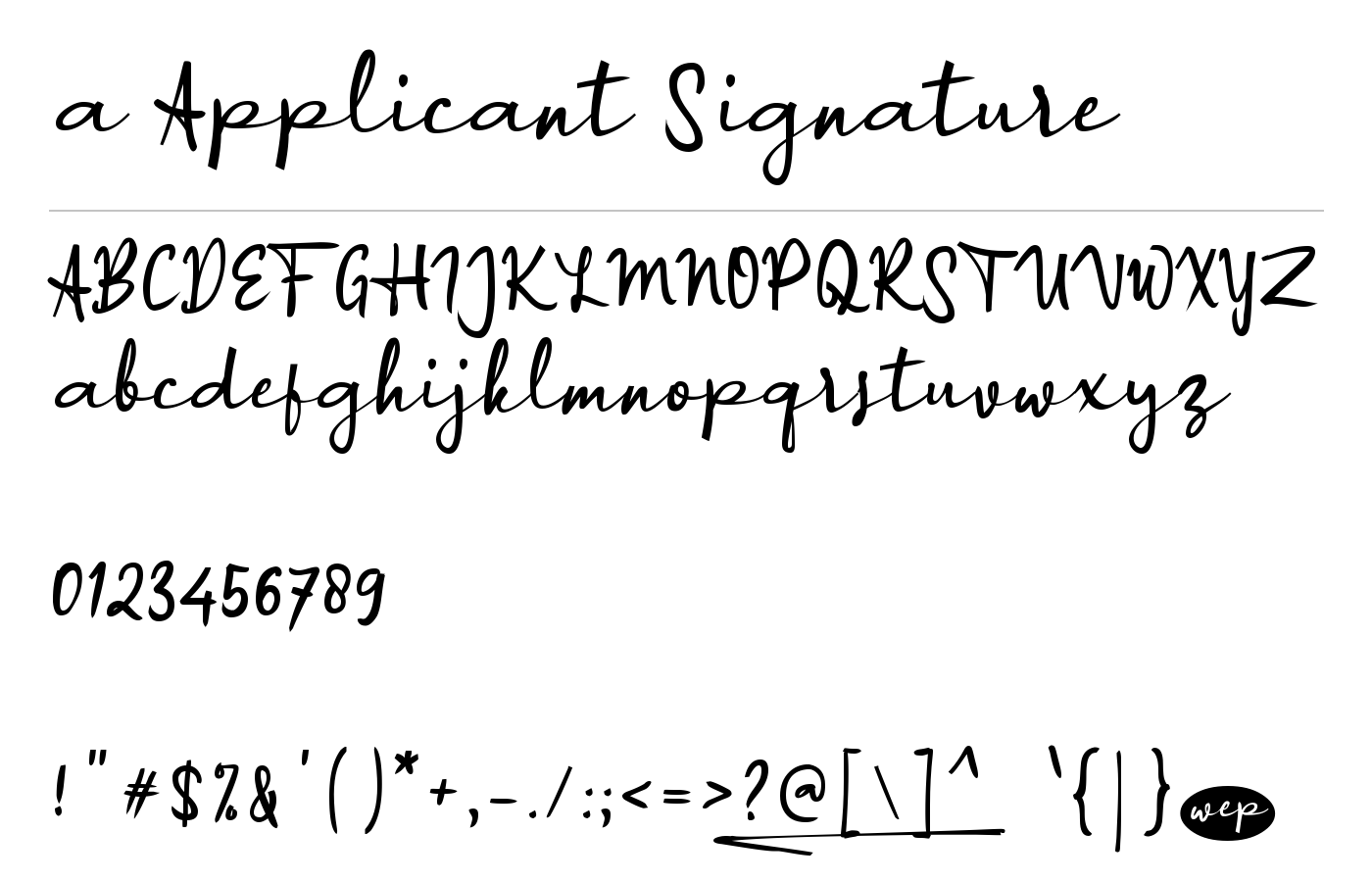
Applicant Signature is a casual, handwritten script font with a friendly and personal feel. Its smooth, flowing strokes and moderate weight create a natural, approachable look that works well for informal branding, invitations, and creative projects where a human touch is desired. This font shines in designs that need a warm, authentic signature style without being overly formal or decorative.
a Applicant Signature Font
About a Applicant Signature Font